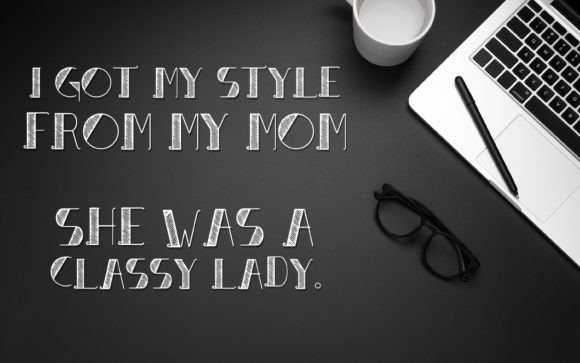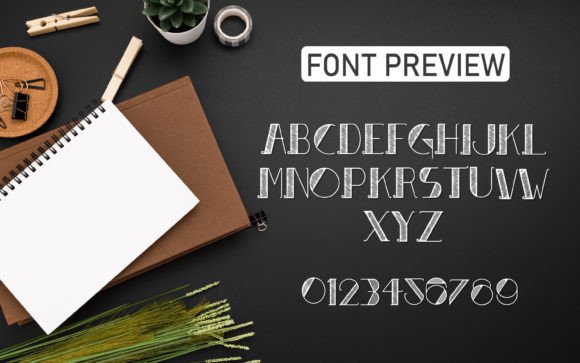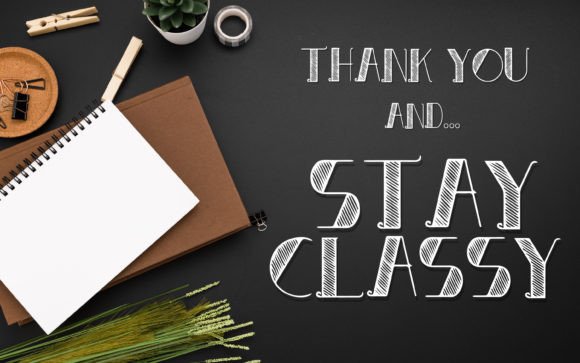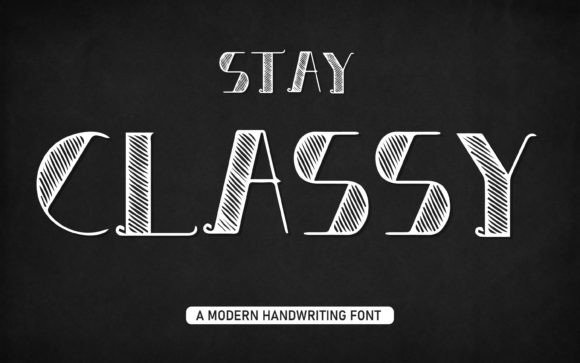
Stay Classy
Stay Classy: An Attractive and Versatile Slab Serif Font
Stay Classy is an attractive slab serif font with a wide range of applications. This versatile typeface works beautifully for everything from business cards to headlines, and is sure to add a touch of class to your next project. Moreover, it brings elegance and sophistication to any design.
Key Features of Stay Classy
• Attractive Design: Offers a refined and appealing look.
• Versatile Style: Adapts well to various design needs.
• Slab Serif Structure: Features elegant serifs that add sophistication.
• Wide Application: Perfect for both business and creative projects.
Best Uses for Stay Classy
Stay Classy’s unique characteristics make it particularly well-suited for:
When using Stay Classy in your designs, keep these tips in mind:
• Use for both business and creative projects to showcase its versatility.
• Try different sizes to highlight the font’s elegant features.
• Pair with simpler fonts for body text to create balanced layouts.
• Experiment with colors that enhance its sophisticated appeal.
To sum up, Stay Classy is an excellent choice for designers seeking an attractive and versatile slab serif font. Its ability to work well across various applications makes it a valuable addition to any designer’s toolkit. Whether you’re creating business cards, designing headlines, or developing elegant branding materials, Stay Classy offers the perfect blend of sophistication and versatility.
Furthermore, Stay Classy’s unique design allows it to shine in both professional and creative contexts. For instance, from business materials to editorial designs, this font can elevate your projects with its refined style. Also, its elegant yet readable appearance works particularly well in designs that aim to convey professionalism while maintaining visual appeal.
In conclusion, Stay Classy truly captures the essence of elegance in slab serif typography. Its versatility across different applications shows how it can enhance various creative needs. Therefore, for those wanting to add a touch of sophistication to their work, Stay Classy can improve themed creations with its distinctive style. Ultimately, it’s an ideal choice for designers aiming to make a refined, professional impact across a wide range of projects.